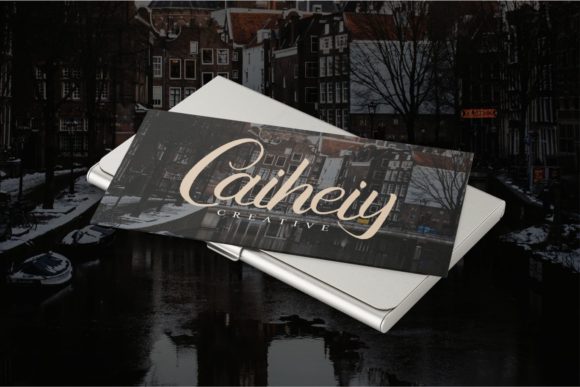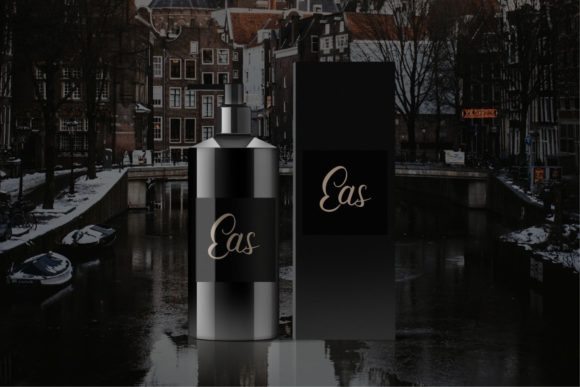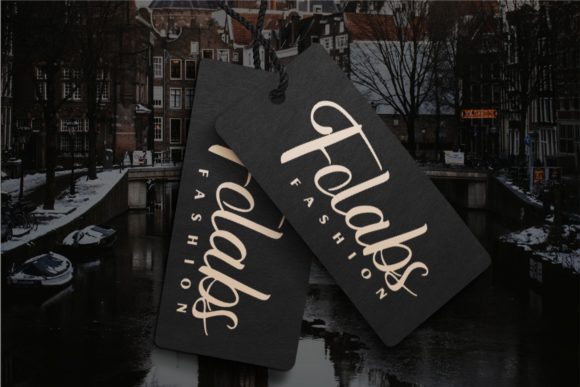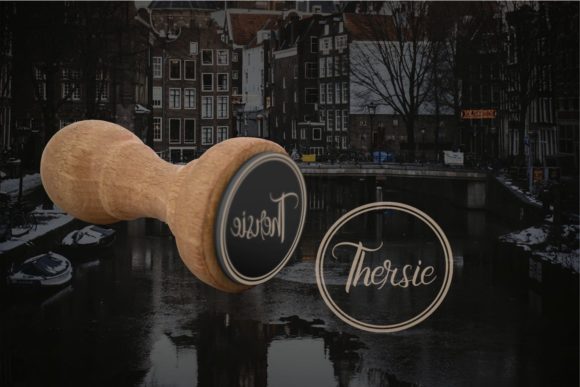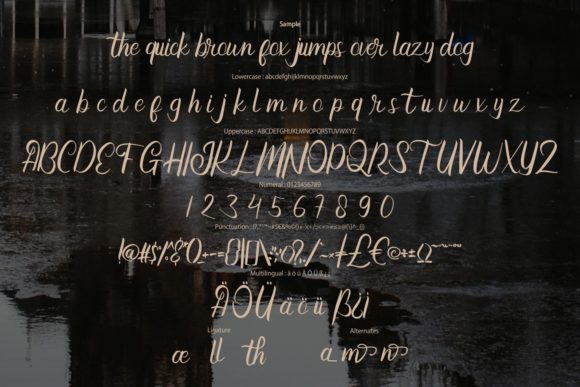
Introduction to Jeqez Font
As a designer, have you ever stared at a blank canvas, searching for the perfect font to bring your creative project to life? The moment of inspiration strikes, and suddenly, your design transforms into a masterpiece. That’s exactly what happens when you discover the Jeqez Font – a delicate, elegant, and flowing handwritten font that adds a touch of sophistication to any design.
With its beautiful and well-balanced characters, the Jeqez Font is a valuable resource for designers seeking a unique and refreshing look for their designs. Whether you’re working on a branding project, creating a logo, or crafting a beautiful invitation, this font is sure to impress. And the best part? The Jeqez Font is available for free download, making it an accessible design resource for designers of all levels.
From transparent backgrounds to high-quality prints, the Jeqez Font adapts seamlessly to any design requirement, making it an essential tool for any creative project. So why settle for an ordinary font when you can have an extraordinary one? Discover the beauty of the Jeqez Font and elevate your designs to new heights.
Key Features of Jeqez Font
- Unique and Creative Design: Jeqez Font offers a distinctive and artistic design that can elevate your creative project.
- High-Quality Design: Jeqez Font features high-quality design elements, ensuring a crisp and clear appearance, even when used on a transparent background.
- Large Character Set: The font includes a large character set, making it suitable for a wide range of creative projects, from logos to typography.
Honest Review: Jeqez Font
I recently came across the Jeqez Font, and I must say it’s a decent addition to any design resource. As a designer, I appreciate high-quality fonts that can elevate my creative projects.
One of the standout features of the Jeqez Font is its ✨ versatility. It comes in a range of weights and styles, making it suitable for various design applications. I particularly like that it’s available for free download, which is always a bonus for designers on a budget.
Here are some of the key features that I like about the Jeqez Font:
- Transparent background, making it easy to work with
- Range of weights and styles to suit different design needs
- May not be as extensive as some other font libraries
- Not ideal for complex typography or intricate designs
- Some users may find the font a bit too minimalist
Overall, I’d say the Jeqez Font is a solid choice for designers looking for a reliable and high-quality font. While it may not be perfect, it’s a great addition to any design resource and can be a valuable asset for creative projects.
Getting the Most Out of Jeqez Font
For the best results, use the Jeqez Font in conjunction with a high-quality design resource, such as a high-resolution image or a professional template. You can also experiment with different font sizes, colors, and styles to create a unique look that suits your creative project.
The Jeqez Font is commonly used in a variety of creative projects, including presentations, documents, and social media graphics. Its transparent background and high-quality design make it an ideal choice for designers and non-designers alike.
Does the Jeqez Font have a transparent background?
No, the Jeqez Font does not have a transparent background. However, you can use the font in conjunction with a transparent background image or design element to achieve the desired effect in your creative project.